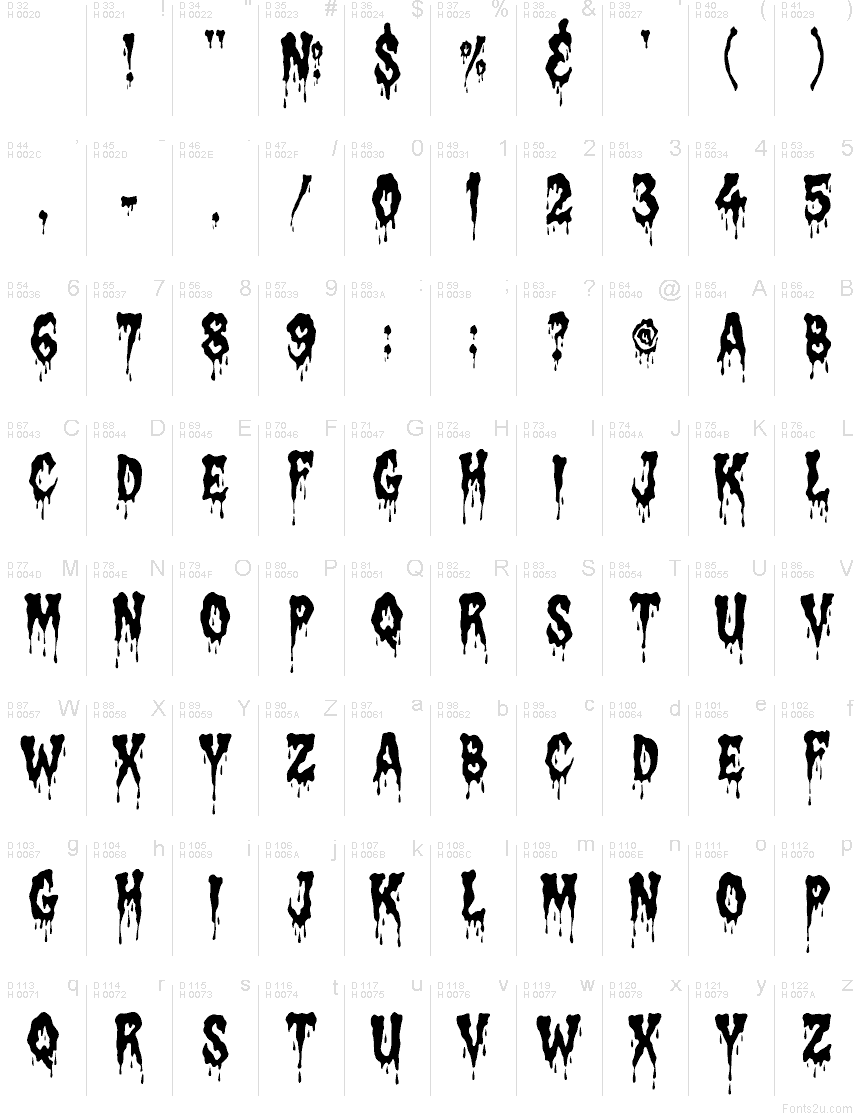
TC Monster Mash font by Type City Font Co is a free scary display typeface that oozes with B-movie horror energy. Thick, inky letters drip downward like wet paint on a haunted house sign, with uneven edges that feel scratched, splattered, and just a little bit unstable. It reads clearly at a glance, but the shapes are wild enough to make any title look like it’s been pulled straight from a cult horror poster or midnight monster marathon.
This free font shines on Halloween flyers, haunted house branding, party invitations, horror movie titles, game logos, YouTube thumbnails, and creepy merch. Using TC Monster Mash instantly sets a spooky, campy mood without needing extra graphics; just crank the size up for headlines and let the dripping forms do the storytelling. For supporting text, pair it with a clean, neutral sans serif so the chaos stays in the titles where it belongs.